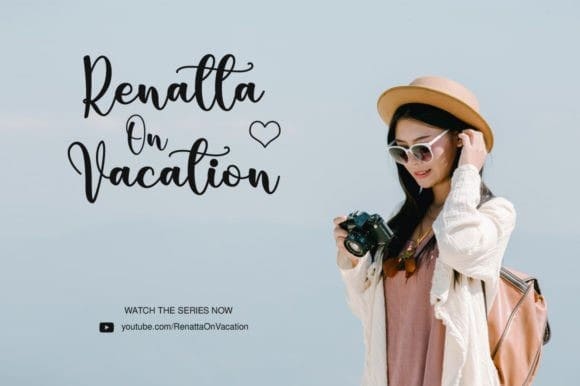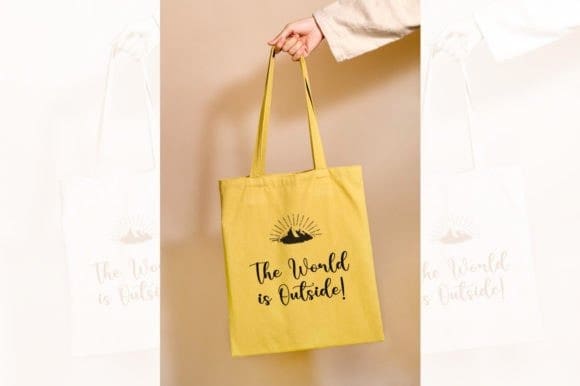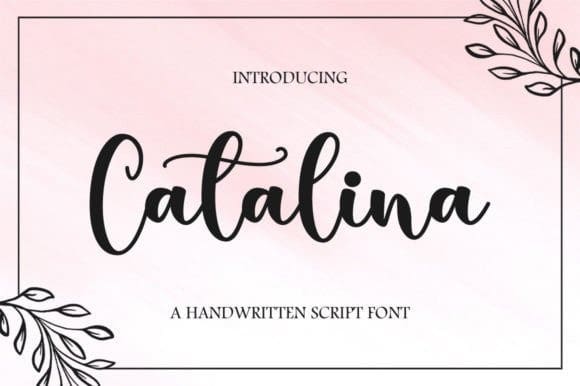
Catalina Calligraphy Font
Catalina Calligraphy Font, is a lovely and timeless handwritten font. It is the best choice for creating eye-catching logos, branding, and quotes.